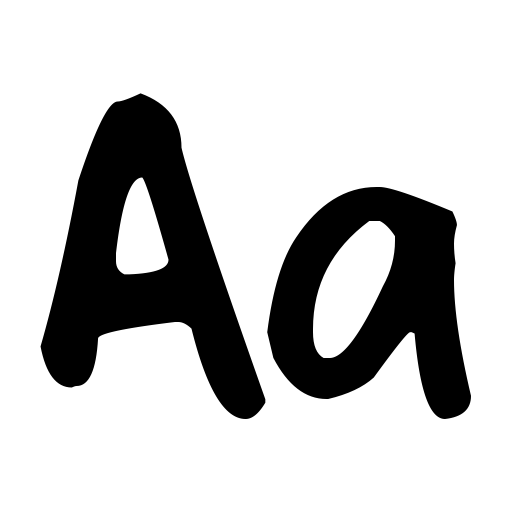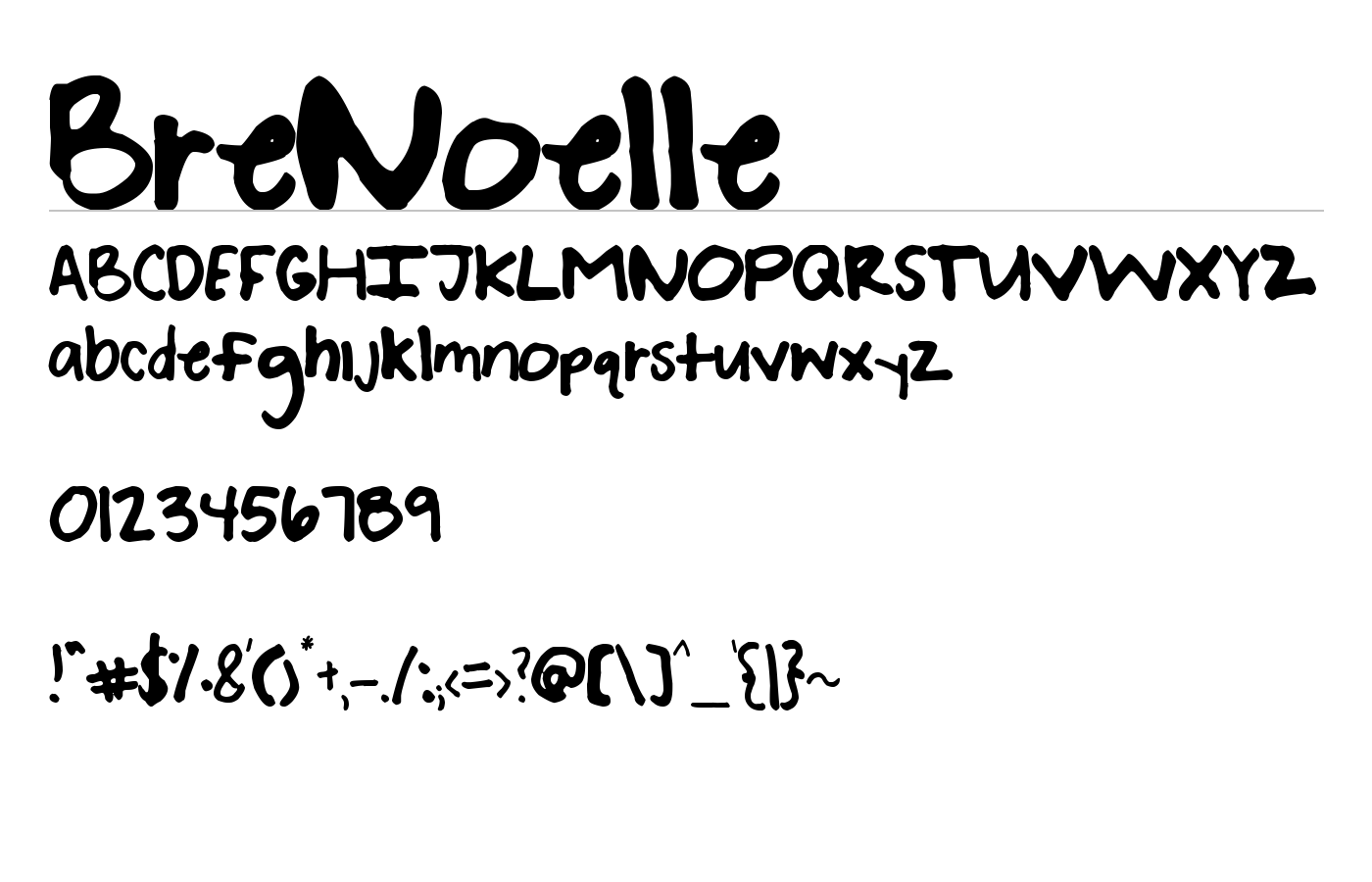
BreNoelle is a playful, hand-drawn sans serif font with a casual, slightly irregular style that feels friendly and approachable. Its medium weight and informal letterforms make it ideal for creative, youthful designs like greeting cards, children’s products, or casual branding where a personal touch is desired. This font works best for headlines and decorative uses, adding a warm, handmade feel to any project.
BreNoelle Font
About BreNoelle Font